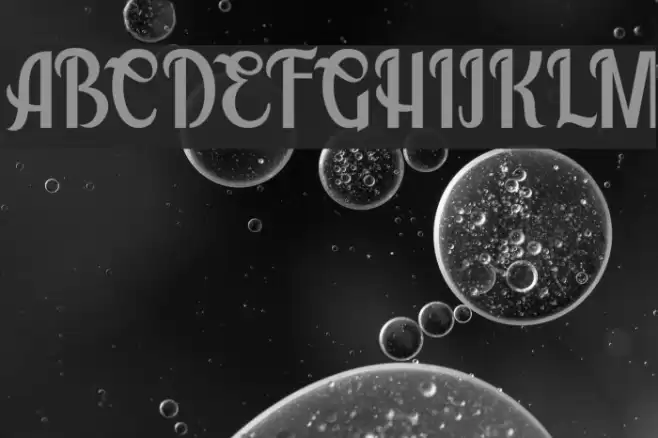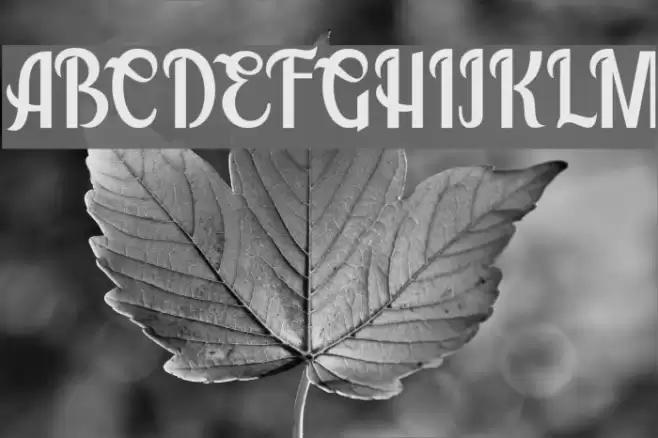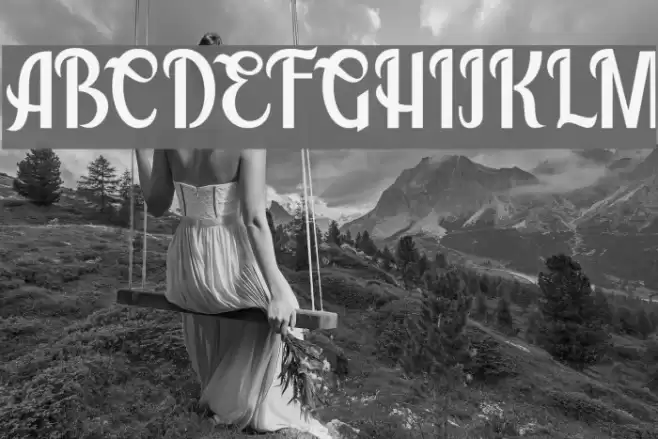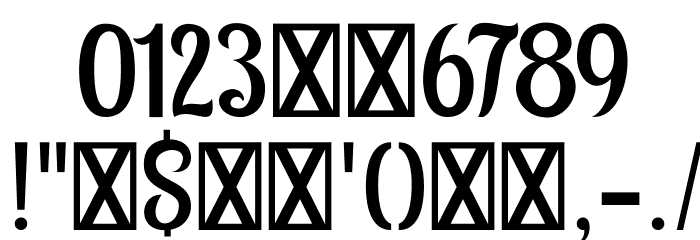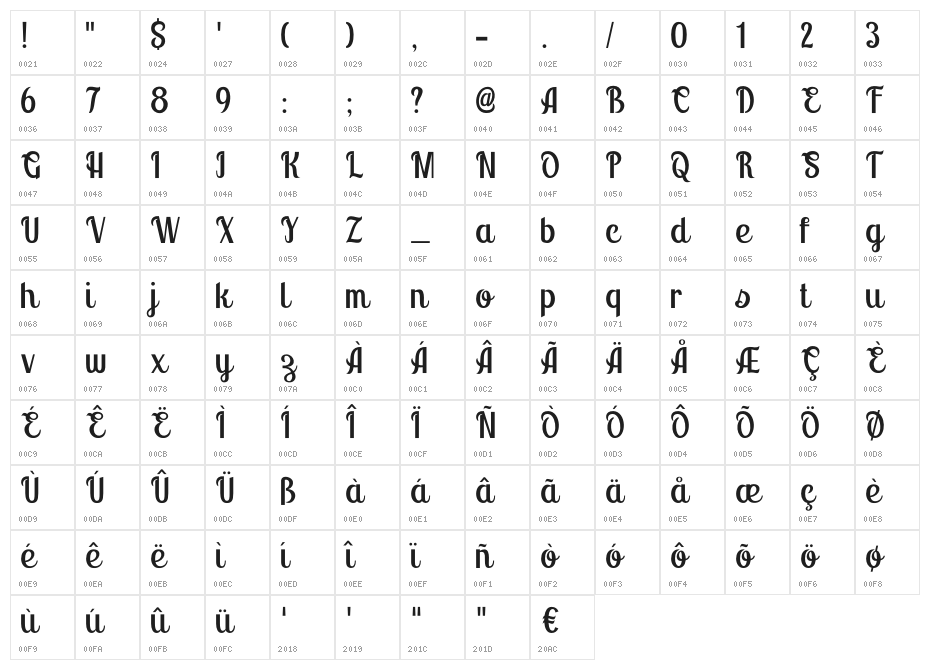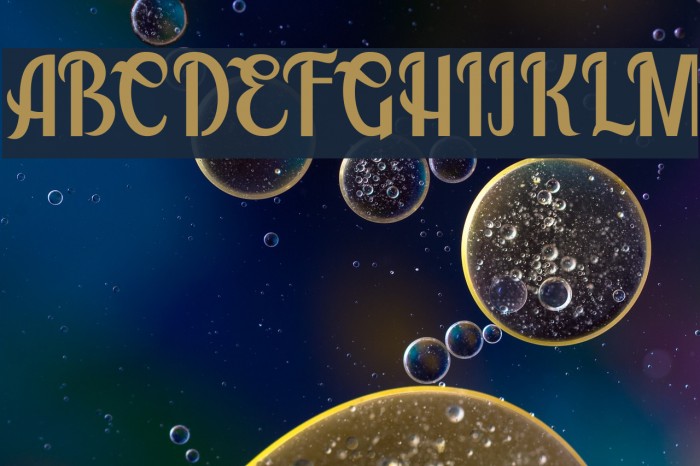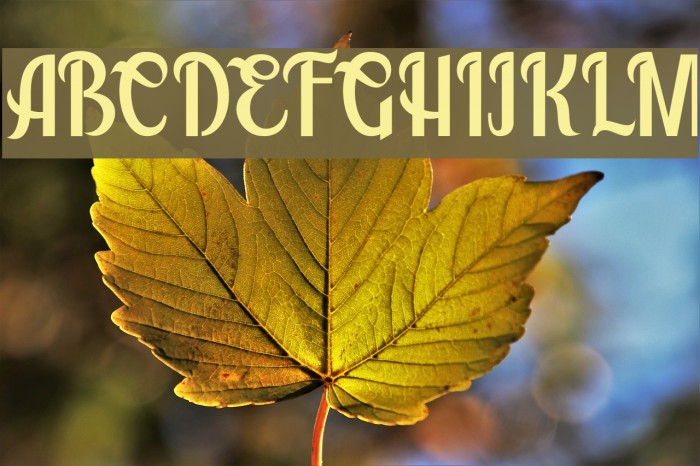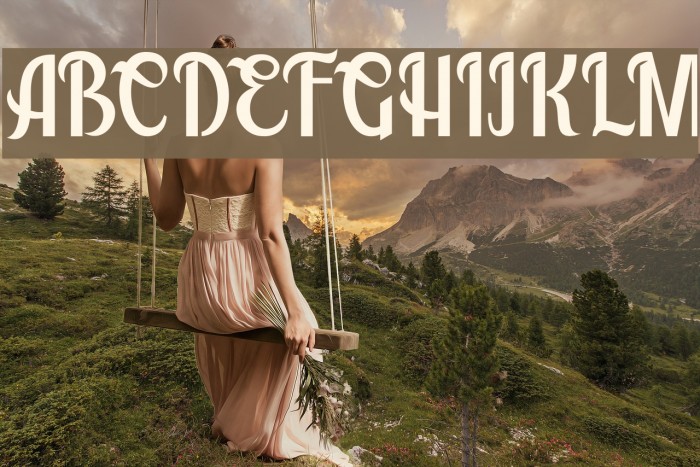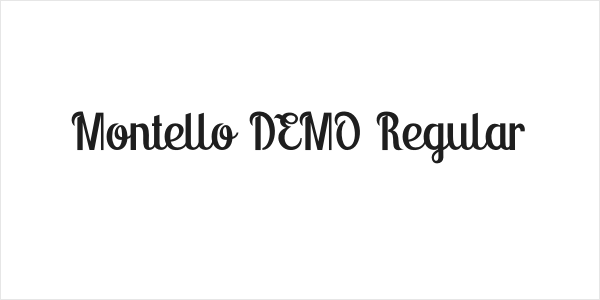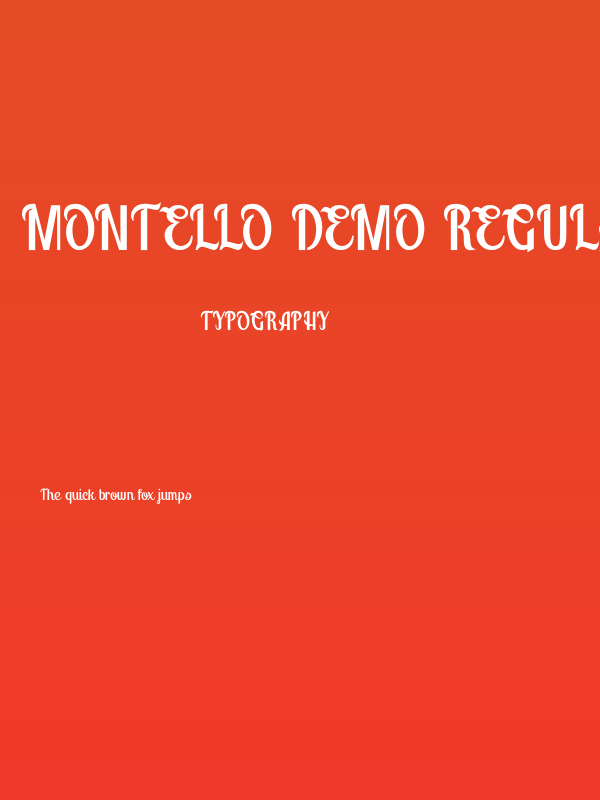
Montello DEMO Regular Font
Montello DEMO Regular Description
This font features a bold and decorative style with a unique flair. The uppercase letters are characterized by their dramatic curves and flourishes, giving them a distinct and artistic appearance. The lowercase letters maintain a consistent style, with smooth curves and a slightly condensed form. The numbers are bold and clear, ensuring readability. Special characters are designed to match the overall aesthetic, adding a cohesive look to the font. This font is ideal for projects that require a touch of elegance and creativity.
A bold, decorative font with dramatic curves and artistic flair from Uncategorized fonts.
- Proposed Projects: Ideal for branding, posters, invitations, and any design requiring a decorative touch.